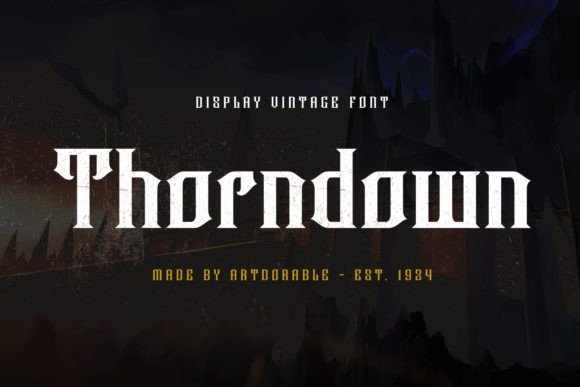
Introducing Thorndown: The Regal Serif Font for Unforgettable Impressions
Unleash the power of medieval elegance with Thorndown, the serif font that captures the essence of antiquity while exuding a distinctively modern charm. Crafted with meticulous precision, Thorndown transports you to a bygone era, inviting you to weave tales of chivalry and romance.
Embark on a journey through time as Thorndown's graceful curves and intricate details evoke a sense of nostalgia and grandeur. Allow your designs to emanate an aura of sophistication and charm, whether you're crafting a timeless logo, creating an eye-catching poster, or designing a magazine layout that oozes character.
Step into the world of Thorndown and discover a font that effortlessly blends the best of both worlds – the timeless allure of the past with the contemporary flair of the present. Its versatility extends across a wide spectrum of design projects, making it an indispensable tool for creative professionals seeking to make a lasting impact.
With Thorndown, you'll find yourself immersed in a world of creativity, where your designs transcend mere aesthetics and become captivating narratives that speak to the soul. Let your imagination soar as you explore endless possibilities, transforming ordinary words into extraordinary expressions of art.
Unleash the Power of Thorndown:
- Embellish Your Designs with a Timeless Touch: Adorn your creations with the captivating charm of Thorndown, a font that carries the weight of history and the promise of modernity.
- Forge Unforgettable Logos: Craft logos that command attention and leave an indelible mark on your audience. Thorndown's distinct personality will elevate your brand identity to new heights.
- Create Posters that Captivate: Transform your posters into masterpieces that ignite imaginations and spark conversations. Thorndown's intricate details and elegant flourishes will leave your audience spellbound.
- Design Magazines with Literary Flair: Inject a touch of sophistication into your magazine layouts. Thorndown's classic serif style will lend an air of credibility and gravitas to your publications.
- Craft Packaging that Exudes Elegance: Elevate your packaging designs with Thorndown's refined aesthetic, ensuring that your products stand out on shelves and capture the attention of discerning customers.
Welcome to the realm of Thorndown, where creativity knows no bounds and your designs transcend the ordinary. Embrace the legacy of the past and the promise of the future with this captivating serif font. Let Thorndown guide you on a creative journey where every project becomes a masterpiece.